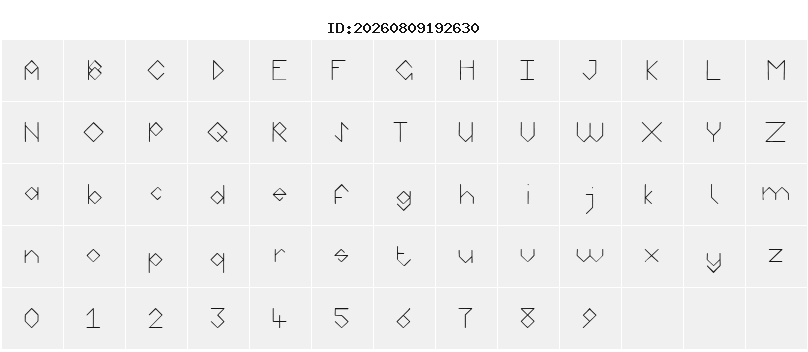
About Pantheon.ttf
Pantheon.ttf is a modern, elegant sans-serif font designed for ultimate readability and visual harmony. Perfect for branding, headlines, web design, and print materials.